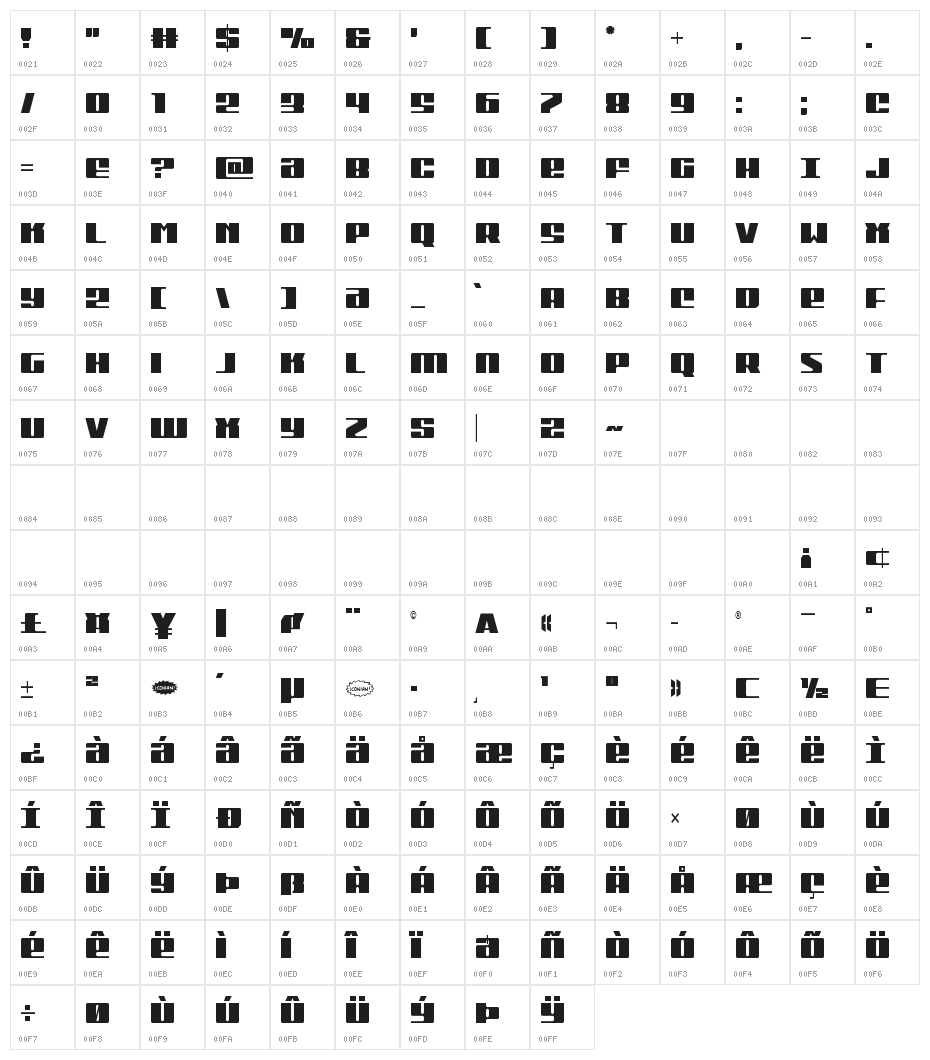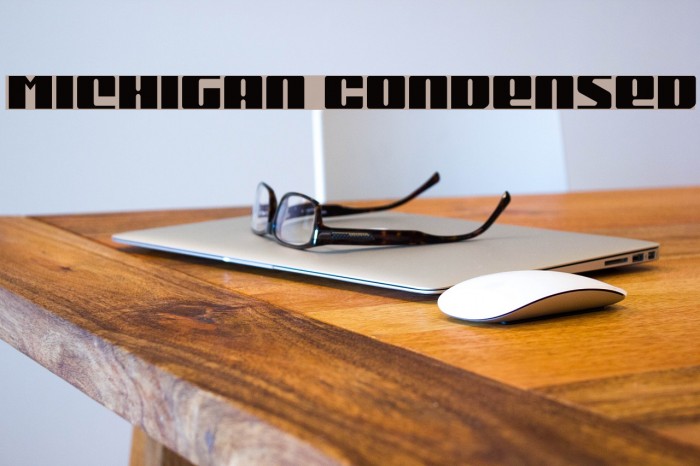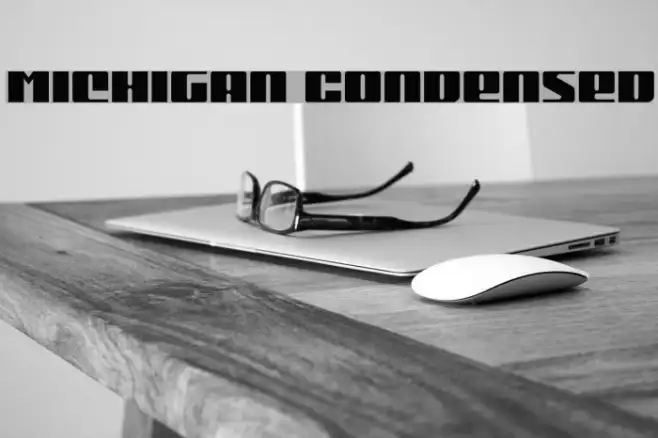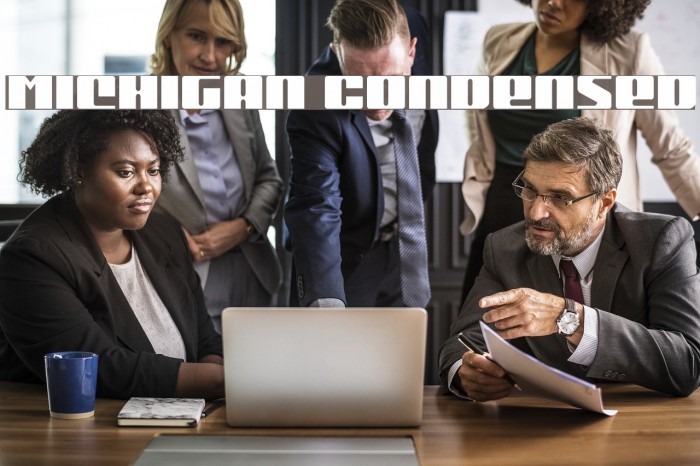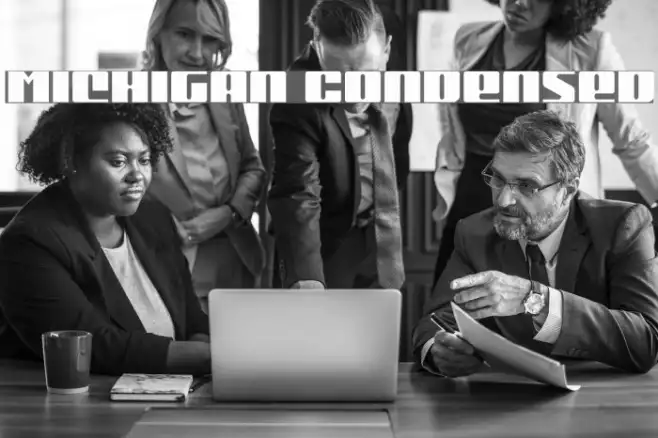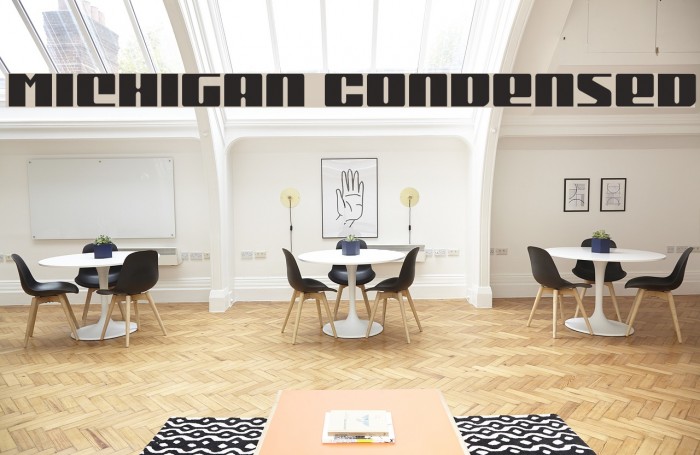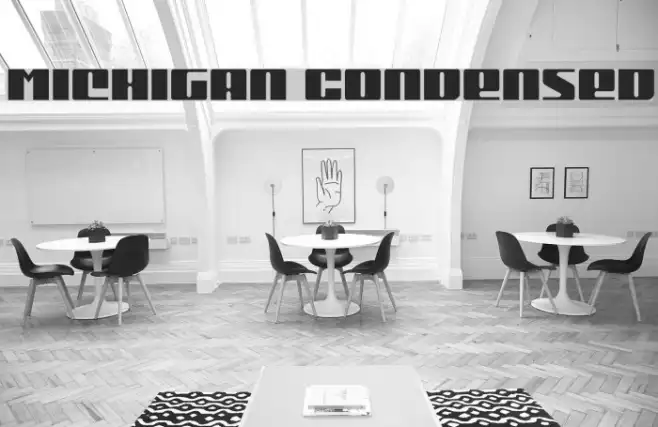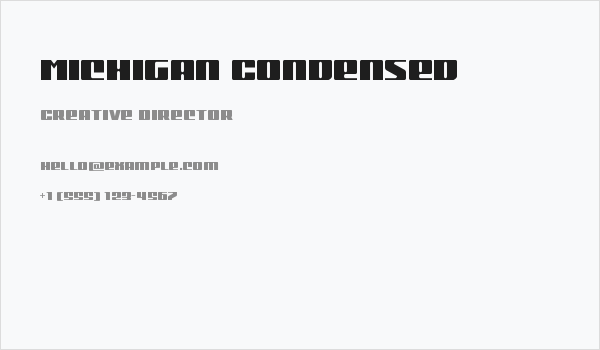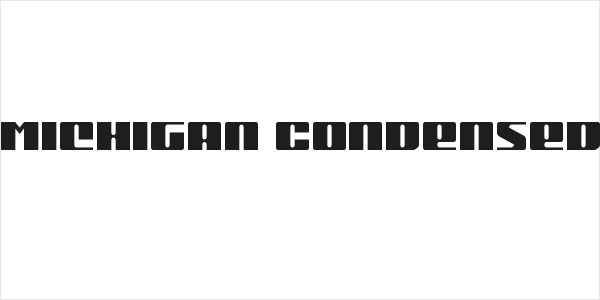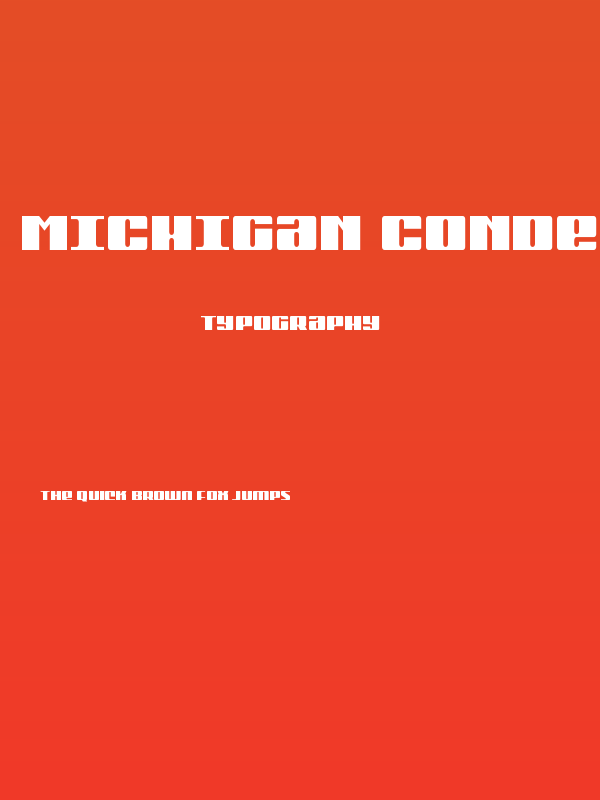
Michigan Condensed Font
Michigan Condensed Description
This font features a bold and condensed style with a strong geometric influence. The characters are blocky and robust, with minimal curves, giving it a modern and industrial feel. The uppercase and lowercase letters maintain a consistent height, enhancing its uniformity. The numbers and special characters follow the same design principles, ensuring a cohesive look across all glyphs. This font's unique style makes it stand out, with its thick strokes and narrow width contributing to its distinctive appearance.
| Proposed Projects | Ideal for branding, posters, headlines, and any design requiring a strong, impactful presence. |